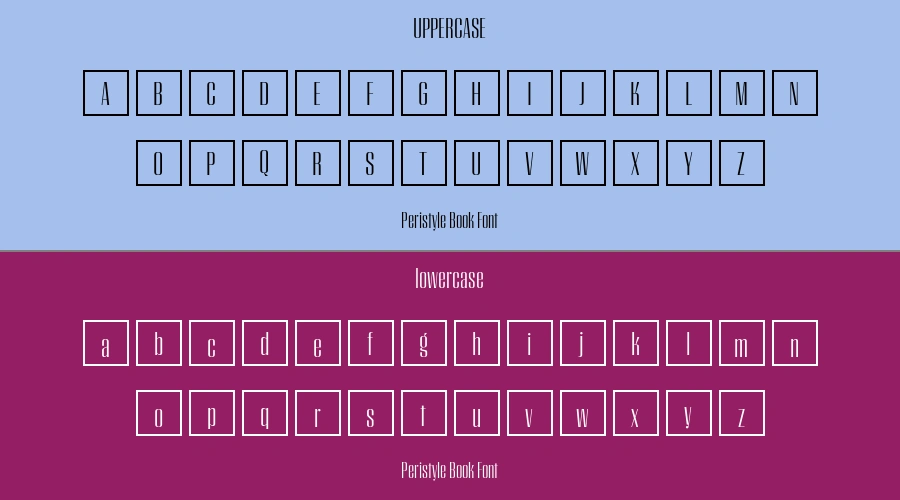
About Peristyle Book Font
Peristyle Book Font stands out for its distinctive combination of rounded apexes and reliability. Ideal for architectural plans, it provides the precision and market appeal that professional projects demand. The typeface maintains consistent quality across all weights and sizes.
Key features include refined ink traps and practical oldstyle figures, enhancing typographic expression. In image captions applications, Peristyle Book Font demonstrates exceptional reproduction fidelity. The cap height ratio and market position contribute to its distinctive character and professional appeal.
Peristyle Book Font |